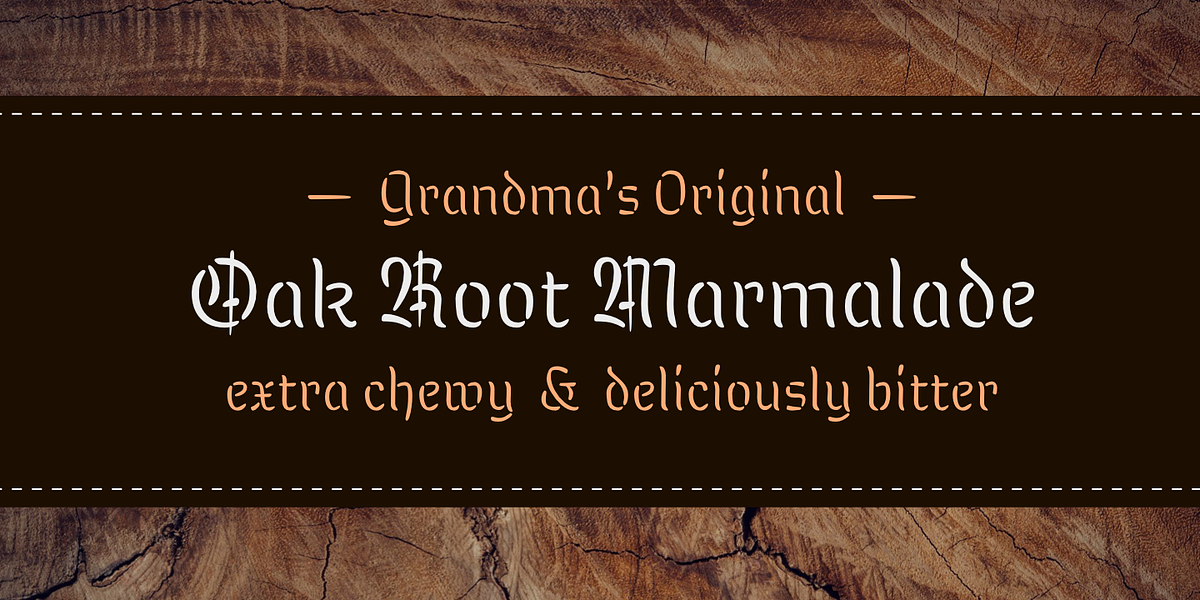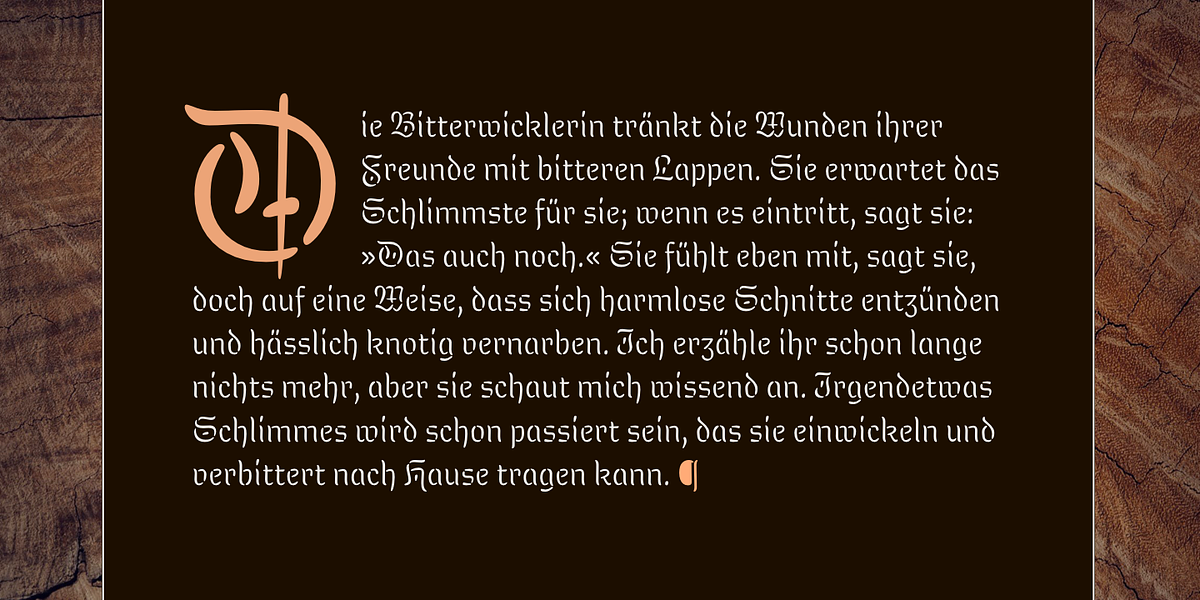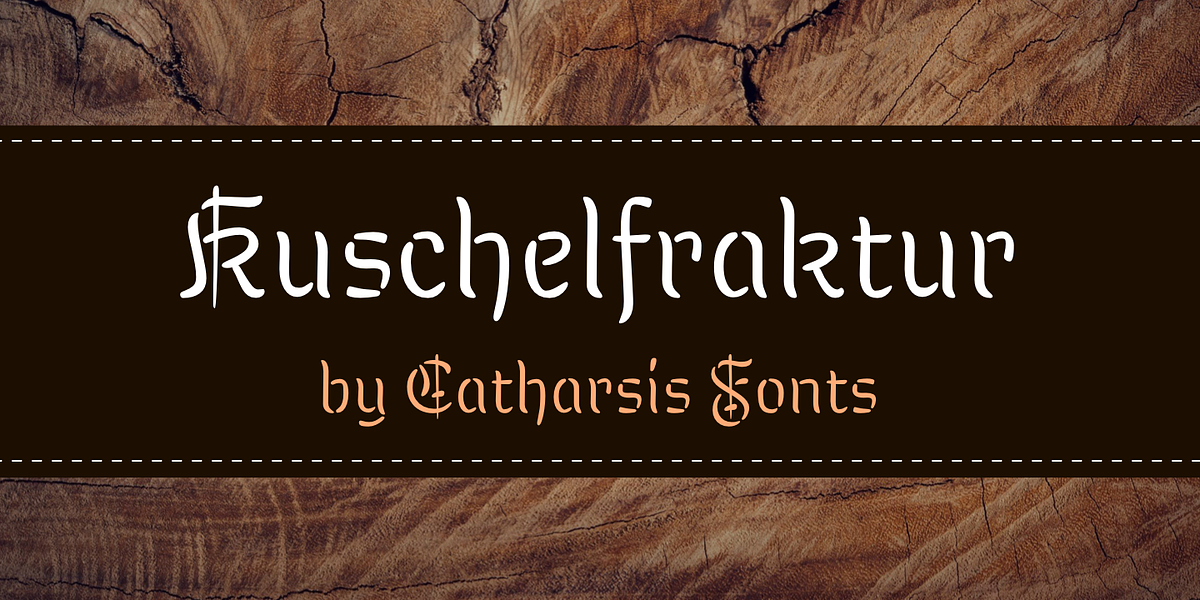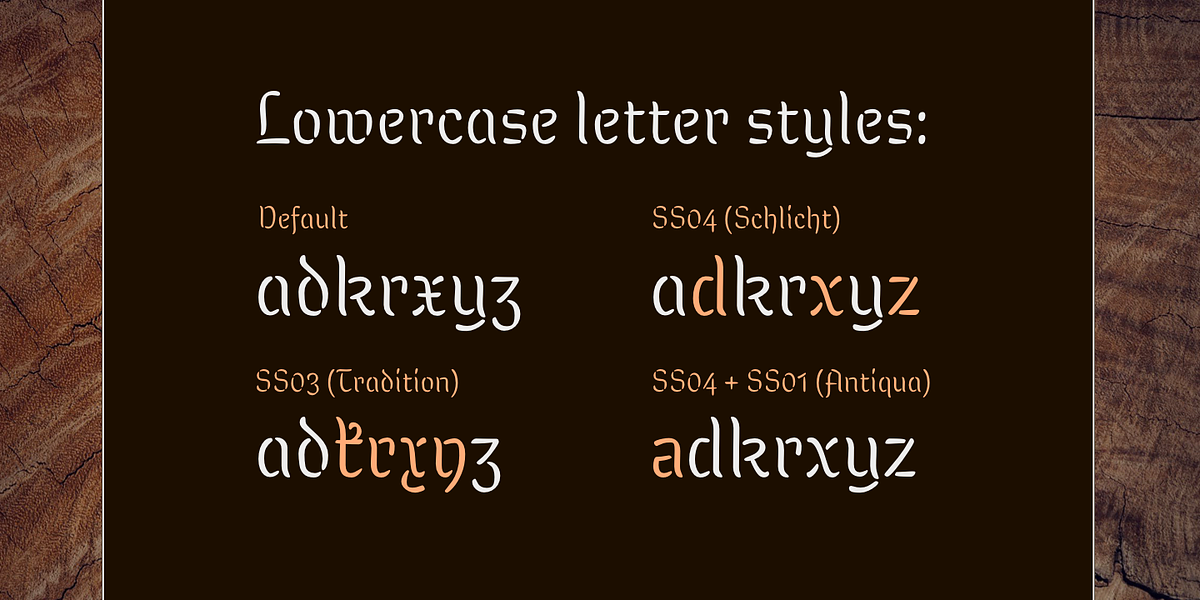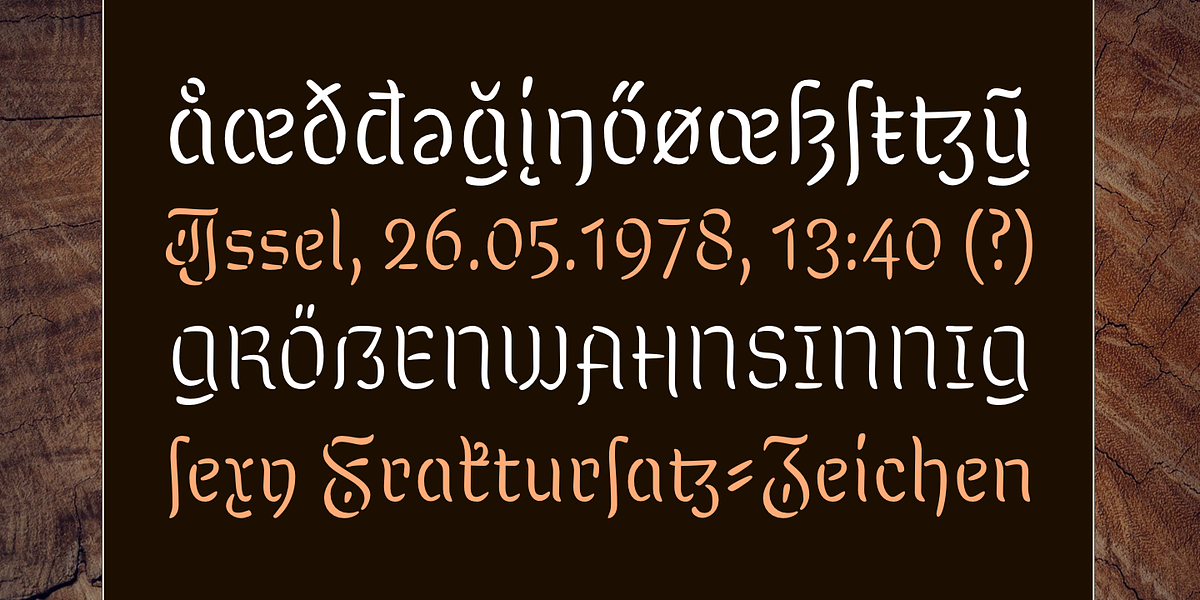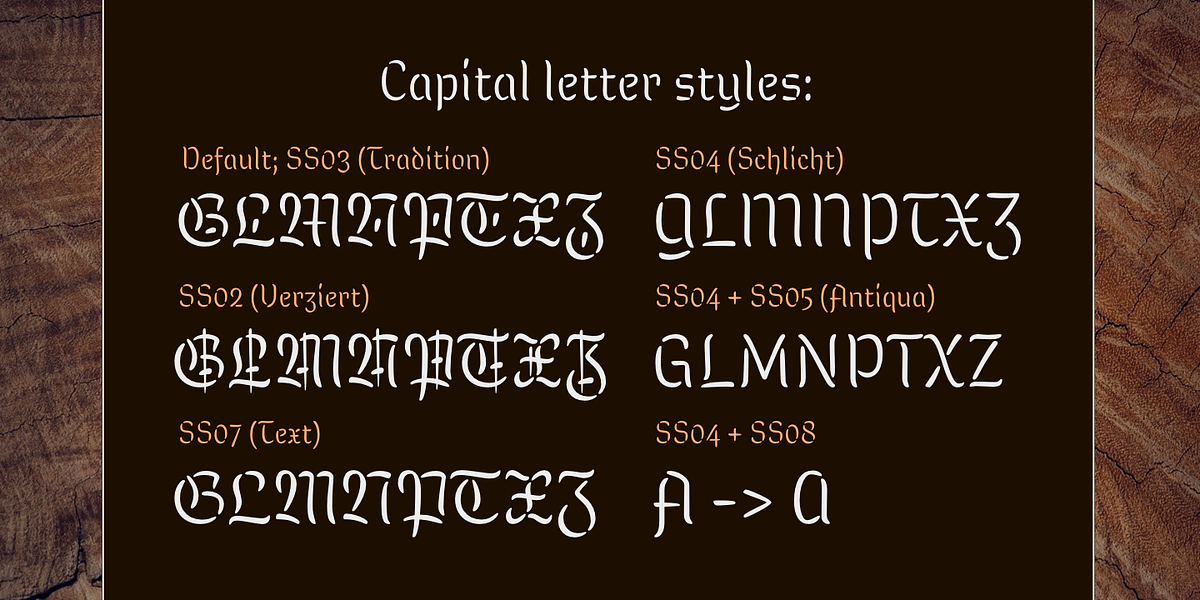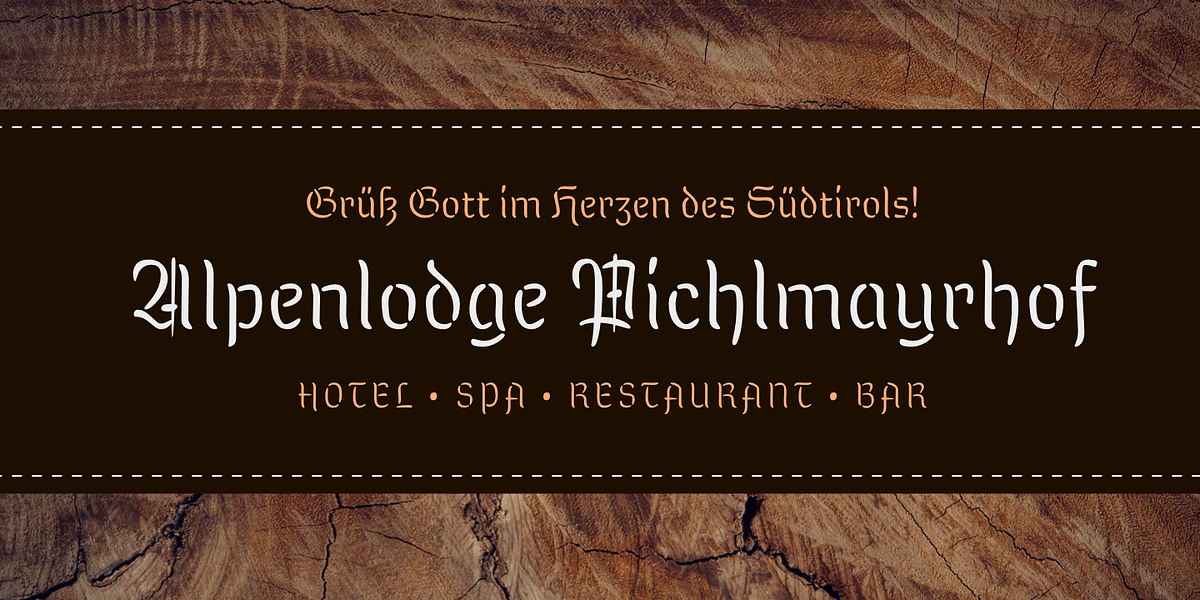
Kuschelfraktur
Kuschelfraktur reimagines blackletter with a brush pen aesthetic. The font achieves stroke variation through stencil-like gaps, blending the formality of blackletter with a more approachable, handwritten feel. It offers extensive customization options via stylistic alternates, allowing users to adjust the level of ornamentation and transition between traditional blackletter and Roman letterforms.